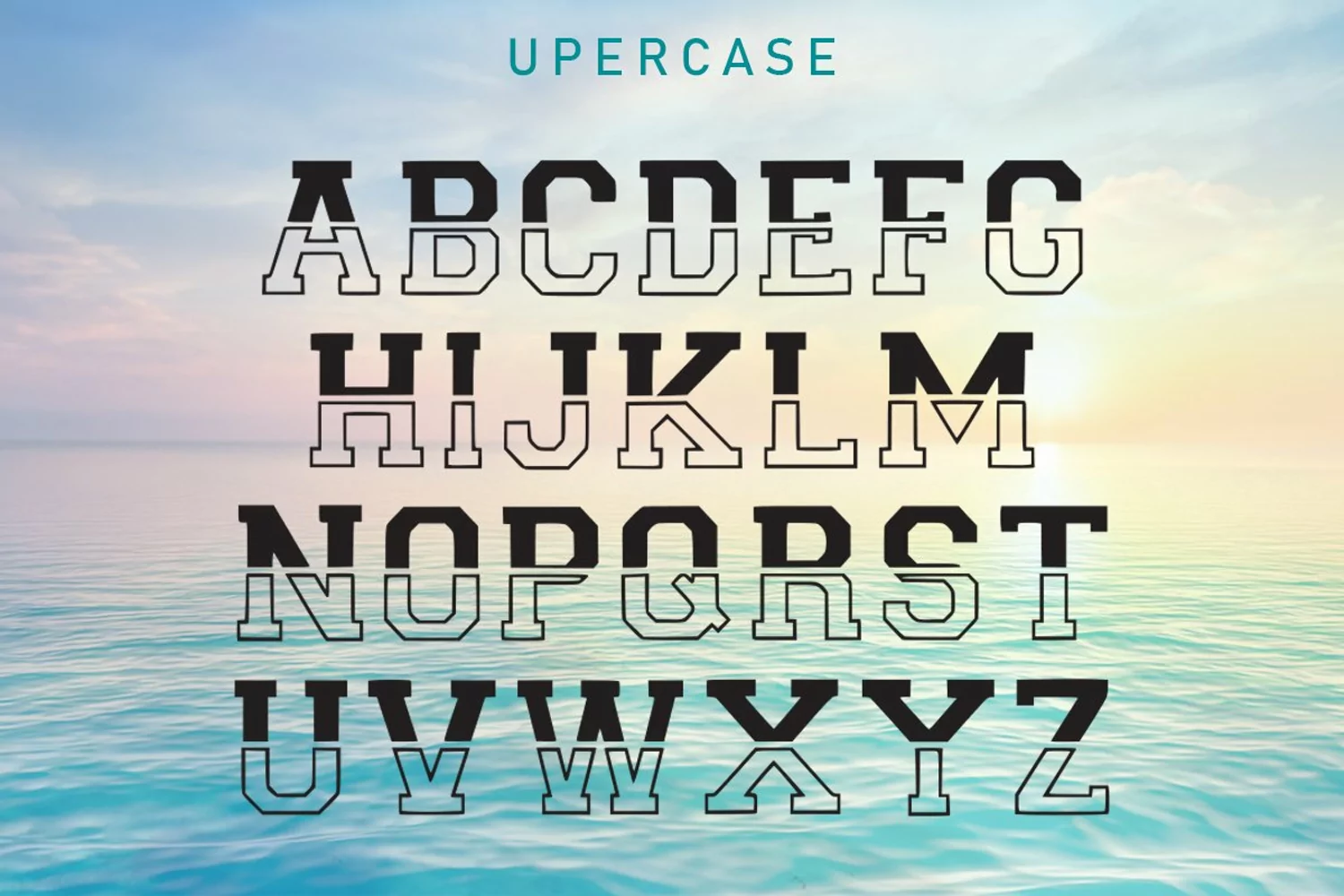
Halfy is an incredibly cool display font. With a modern yet whimsical style, this font has the potential to bring each of your creative ideas to the highest level!